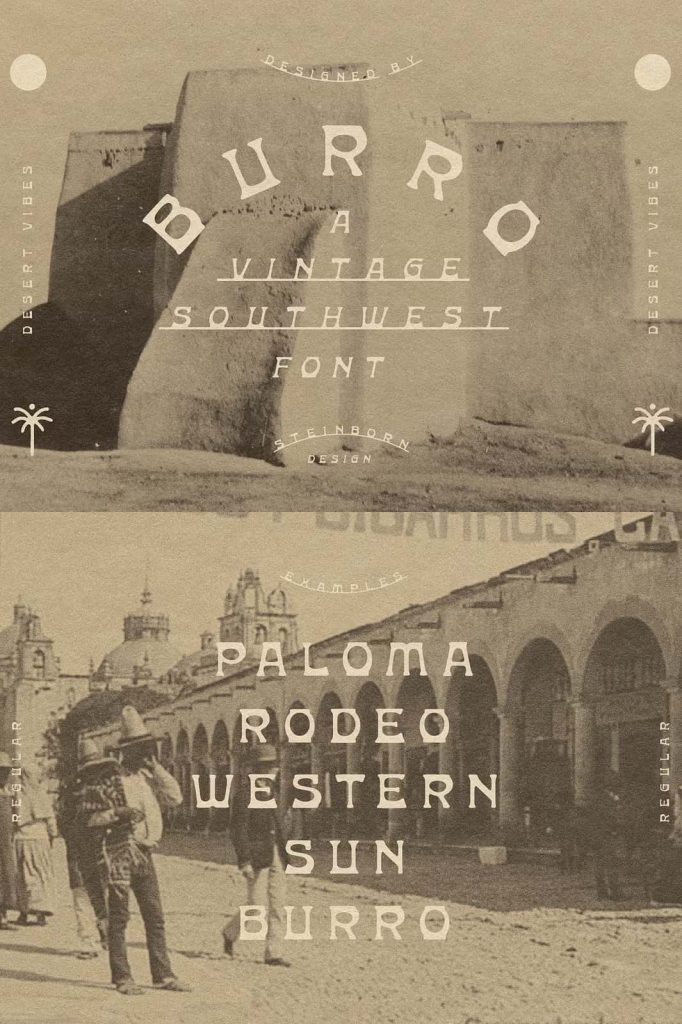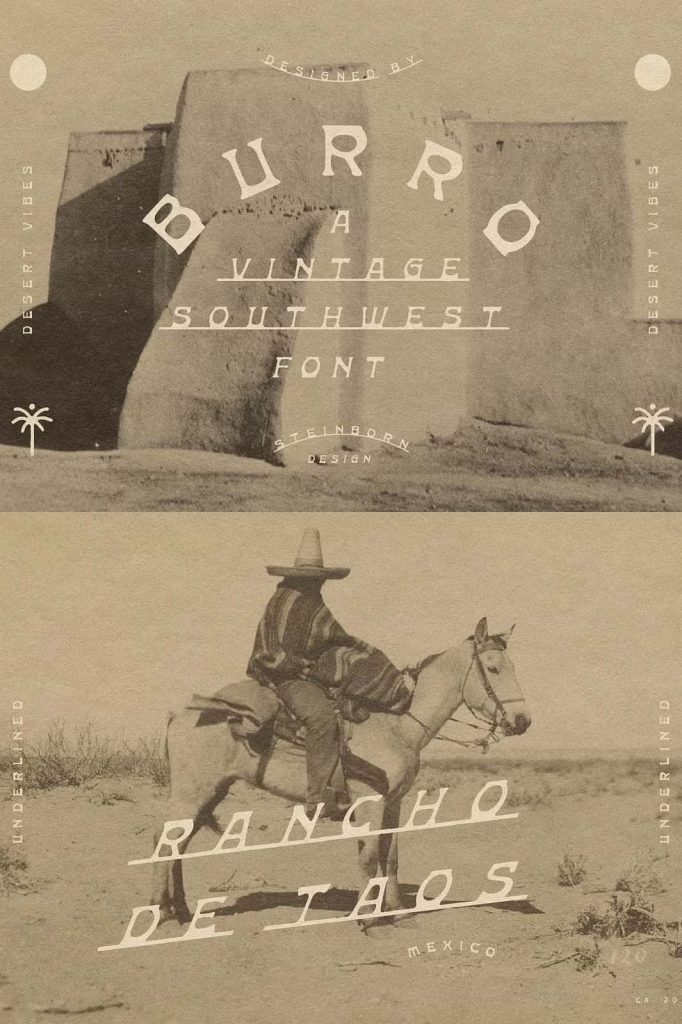
Burro Southwest Font for Authentic Western Branding and Rustic Display Design
Burro Southwest Font is a handcrafted display typeface inspired by the rugged beauty and timeless character of vintage iron signs found throughout the American Southwest. Combining traditional craftsmanship with a bold Western personality, this font captures the spirit of historic desert towns, handcrafted storefronts, ranch entrances, weathered saloons, and classic roadside signage. Every letter reflects the warmth, authenticity, and enduring charm that have defined Southwestern typography for generations.
Designed to make a lasting impression, Burro Southwest Font includes three distinctive hand-drawn styles: Regular, Slanted, and Underlined. Each style offers its own unique personality while maintaining a cohesive visual identity, giving designers the flexibility to create eye-catching typography across a wide range of creative projects. Whether you’re designing a rustic logo, vintage-inspired packaging, bold signage, or promotional posters, Burro Southwest Font delivers authentic Western style with exceptional versatility.
Inspired by Vintage Southwest Iron Signs
The inspiration behind Burro Southwest Font comes directly from the handcrafted iron signs that have decorated businesses, ranches, and public spaces across the American Southwest for decades. These iconic signs feature bold lettering, practical construction, and artistic imperfections that have become symbols of the region’s rich history and independent spirit.
Burro transforms these traditional influences into a modern digital typeface while preserving the handcrafted appearance that makes vintage signage so memorable. The result is a font that feels authentic and nostalgic while remaining highly functional for today’s branding and design needs.
Three Hand-Drawn Styles for Creative Flexibility
One of the greatest strengths of Burro Southwest Font is its collection of three carefully crafted styles. Each variation expands your creative possibilities while maintaining the distinctive Southwestern character that defines the font family.
- Regular: A clean hand-drawn style that works beautifully for logos, headlines, packaging, and signage.
- Slanted: Adds movement and energy, making it ideal for dynamic branding, promotional materials, and vintage advertisements.
- Underlined: Introduces extra personality with a built-in underline that creates an authentic handcrafted sign-painter appearance.
These coordinated styles allow designers to mix and match typography while preserving consistency throughout an entire branding system or marketing campaign.
Key Features
- Authentic handcrafted Southwest display font
- Inspired by vintage iron signage from the American Southwest
- Includes Regular, Slanted, and Underlined styles
- Bold hand-drawn letterforms with rustic character
- Excellent readability for both large and smaller display text
- Perfect for logos, posters, packaging, and signage
- Ideal for Western, rustic, vintage, and outdoor branding
- Suitable for both print and digital design projects
Perfect for Logos and Brand Identity
A memorable logo starts with strong typography, and Burro Southwest Font provides the bold personality needed to build a distinctive visual identity. Its handcrafted construction instantly communicates authenticity, craftsmanship, and heritage, making it ideal for businesses that value tradition and originality.
This font performs exceptionally well for ranch brands, restaurants, breweries, coffee shops, barbecue restaurants, outdoor adventure companies, country stores, vintage apparel brands, leather goods, artisan workshops, and handcrafted product lines. The unique letterforms help businesses establish a recognizable identity that stands apart from generic display fonts.
Create Eye-Catching Signage and Posters
Burro Southwest Font was designed with signage in mind. Its bold proportions and handcrafted appearance ensure excellent visibility from a distance, making it an outstanding choice for storefront signs, directional signs, restaurant menus, event banners, and promotional displays.
The font also shines in poster design, where its vintage-inspired style naturally attracts attention. Whether promoting a country music concert, farmers market, rodeo, Western festival, outdoor event, or rustic celebration, Burro adds authentic character that enhances the overall design.
Ideal for Packaging and Product Labels
Typography plays an important role in product presentation, and Burro Southwest Font brings handcrafted authenticity to every package. The rustic aesthetic works beautifully for coffee bags, whiskey labels, hot sauce bottles, barbecue sauces, craft beer packaging, handmade soaps, candles, leather products, gourmet foods, and artisan goods.
Its vintage charm reinforces the perception of quality and craftsmanship, helping products stand out on retail shelves while creating stronger emotional connections with customers.
Whether you’re designing logos, signage, posters, packaging, apparel, editorial layouts, restaurant branding, or outdoor-themed marketing materials, Burro Southwest Font delivers timeless Western character with handcrafted quality. If you’re looking for a display font that captures the spirit of the American Southwest while offering exceptional versatility, Burro Southwest Font is the perfect choice for your next creative project.